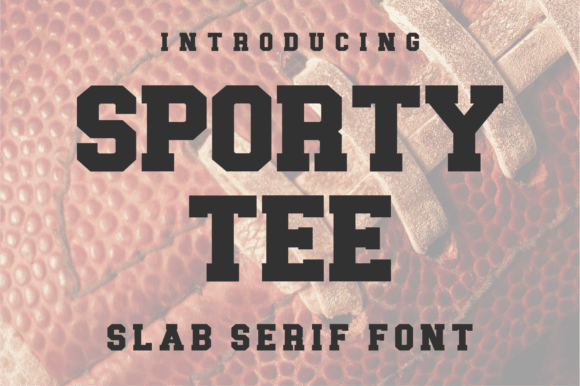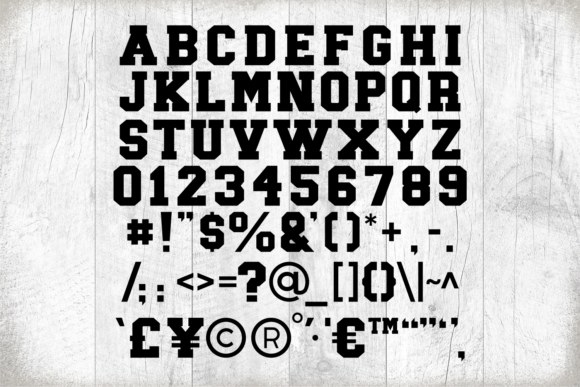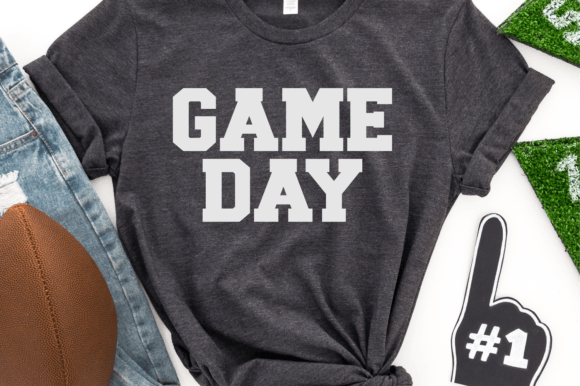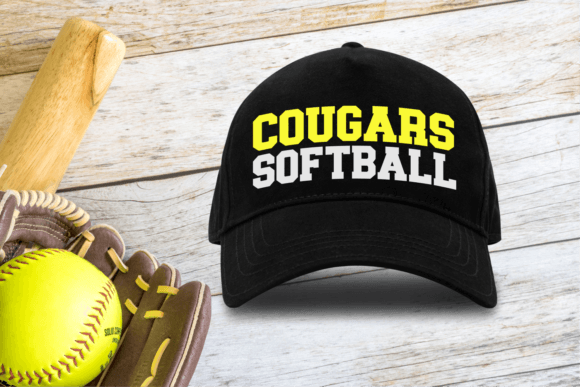
JP Sporty Tee Font
About the JP Sporty Tee Font
The JP Sporty Tee Font offers a perfect balance of form and function for your design needs. JP Sporty Tee is a bold and incredibly assertive slab serif font. Whether you’re using it for crafts, digital design, presentations, or making greeting cards, this font has the potential to become your favorite go-to font, no matter the occasion!
JP Sporty Tee excels in headlines, short impactful statements, and logos where its bold, assertive nature commands attention. It’s ideal for sportswear branding, posters promoting active lifestyles, or packaging for energetic products. However, its slab serifs and weight make it less suitable for body text or lengthy paragraphs; readability suffers at smaller sizes. Avoid using it in UI design, where clear legibility is paramount.
The font’s strong personality pairs well with clean sans-serif fonts like Open Sans or Montserrat for a balanced contrast. For a more playful feel, consider pairing it with a rounded geometric sans-serif such as Circular Std. A touch of elegance can be achieved by using a thin, classic serif like Garamond as an accent.
Its core personality is bold, confident, and energetic, reflecting a modern and active aesthetic. This makes it perfect for brands that want to project strength and dynamism.
JP Sporty Tee Font Example